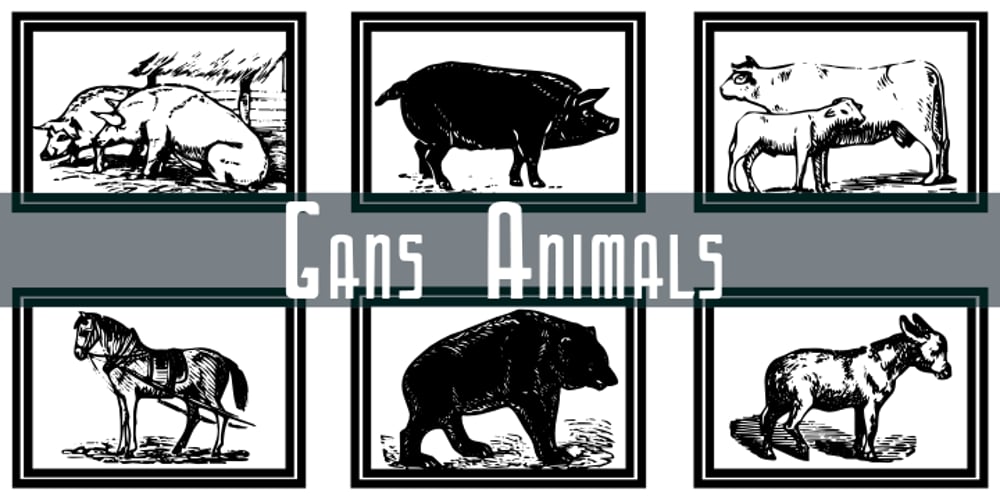
Gans Animals
Gans Animals font
Gans Animals Font Family was designed by Iza W and published by Intellecta Design. Gans Animals contains 1 styles and family package options. A collection of animal drawings in font format. A great set of type dingbats in the genre of farm animals and more. See also other font families inspired by Gans’ original typefaces: Gans Tipo Adorno, Gans Lath Modern, Gans Titular Adornada, Gans Ibarra, Gans Antigua Manuscrito, Gans Fulgor, Gans Radio Lumina, Gans Carmem Adornada, Gans Italiana, and Gans Titania.